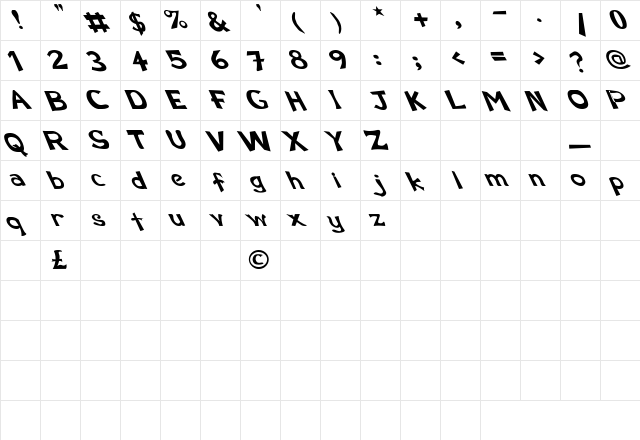
Schwarz Wald Extreme Leftie Regular
Design Context for Schwarz Wald Extreme Leftie Typeface
Schwarz Wald Extreme Leftie is a composed and adaptable typeface that performs quietly and consistently across a wide range of design contexts.
Pro Tip: Use Schwarz Wald Extreme Leftie in both headline and body roles to test its range before committing to a single application.